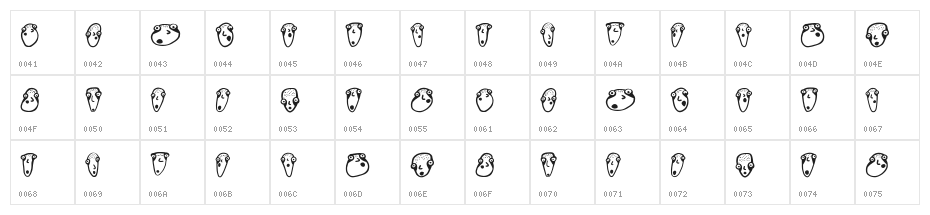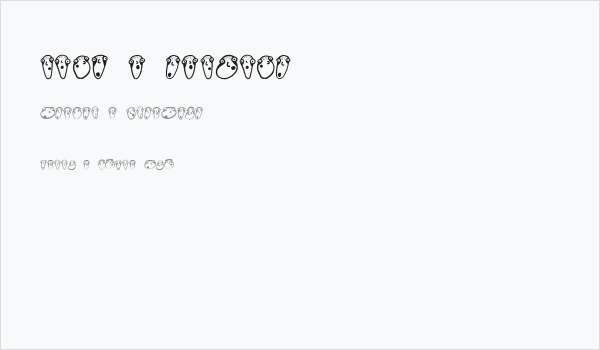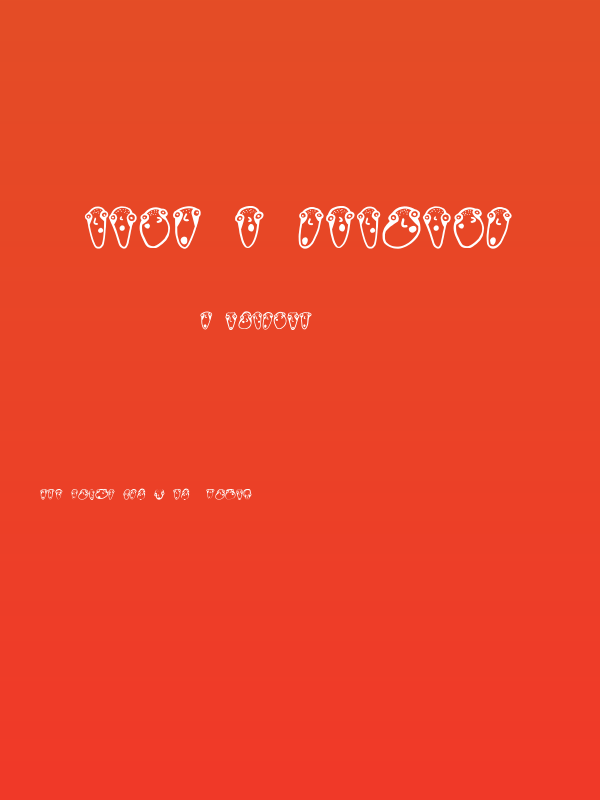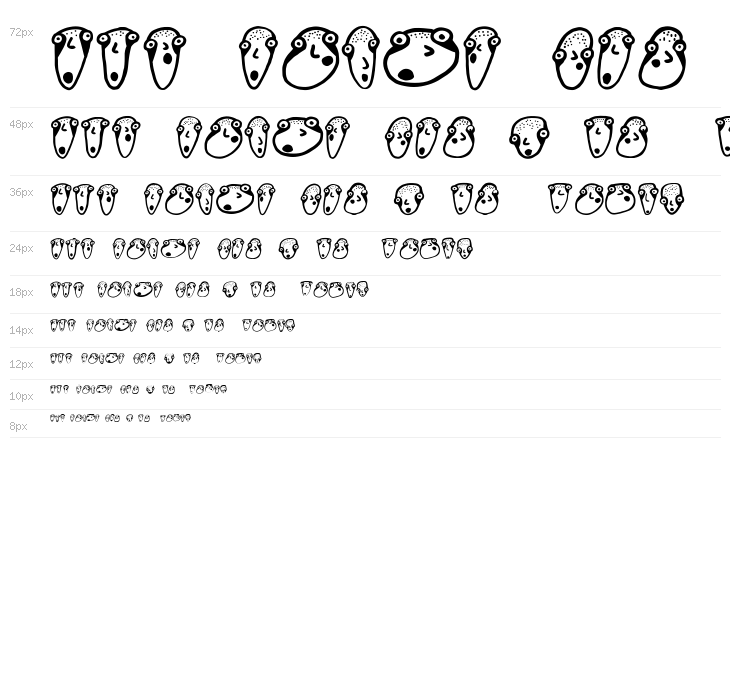
Glatze Regular Font
Glatze Regular Description
This font features a playful and whimsical design, with each character resembling a unique, cartoonish face. The characters are highly stylized, with exaggerated features such as large eyes and varied expressions, giving the font a lively and animated appearance. The overall look is bold and eye-catching, making it suitable for creative and informal projects. The font's distinct personality makes it stand out, adding a touch of humor and fun to any design.
| Overall Style | Whimsical |
| Proposed Projects | Ideal for children's books, comic strips, playful branding, and creative posters. |